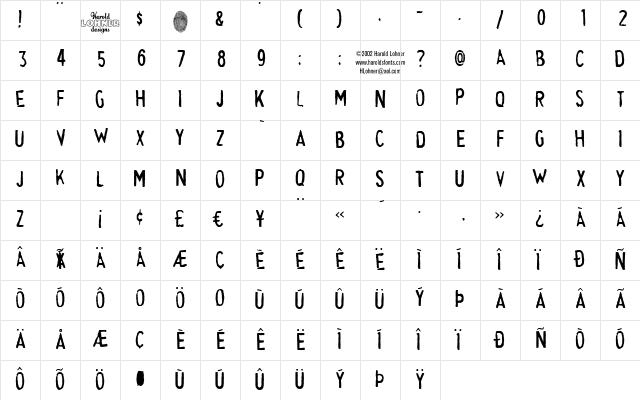
CheapskateFill Regular
| Copyright | CHEAPSKATE FILL font v1.5 98, 2002 Harold Lohner "  "https://www.haroldsfonts.com Based on a cheap set of rubber stamps. |
Design Context for CheapskateFill Typeface
CheapskateFill offers clean, dependable letterforms without strong stylistic allegiance, making it a practical choice for designers who need flexibility.